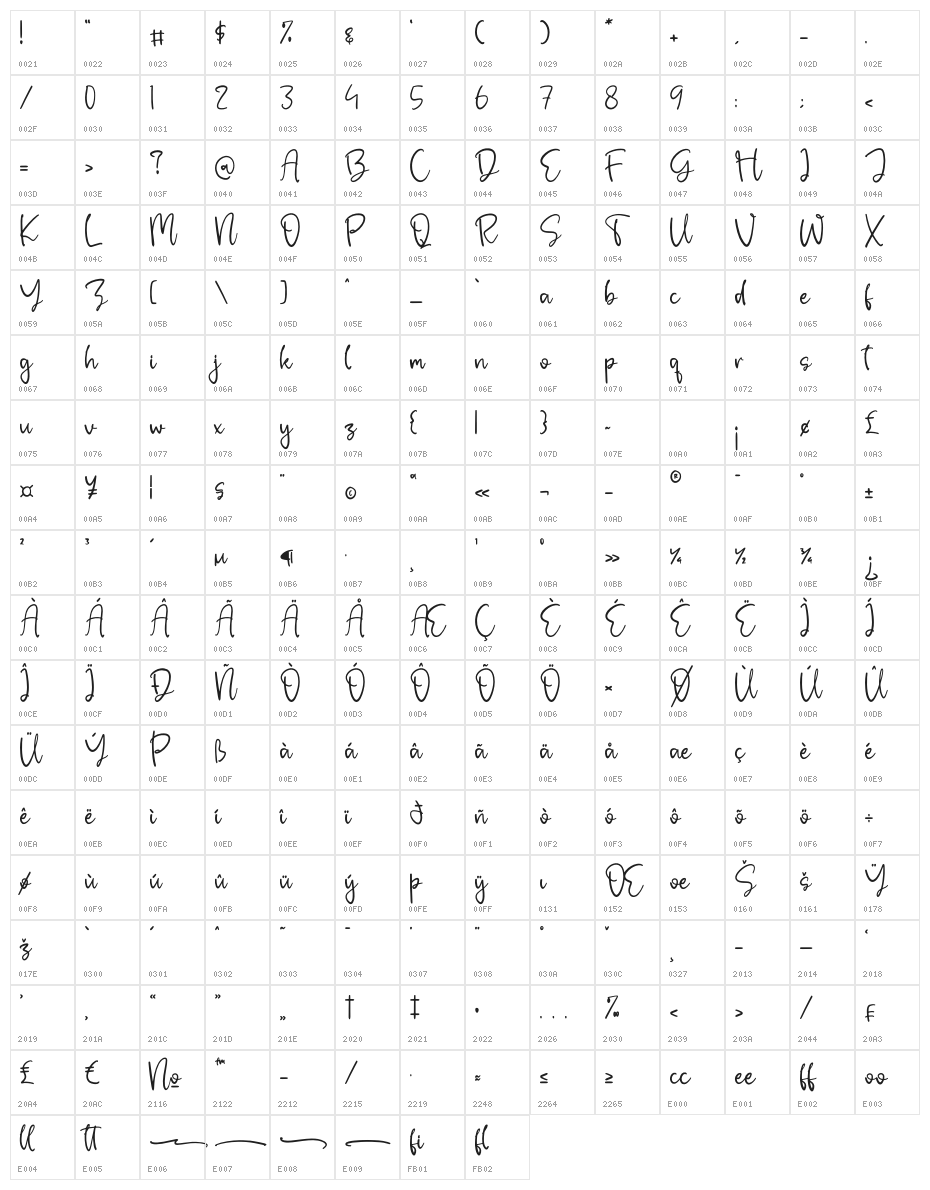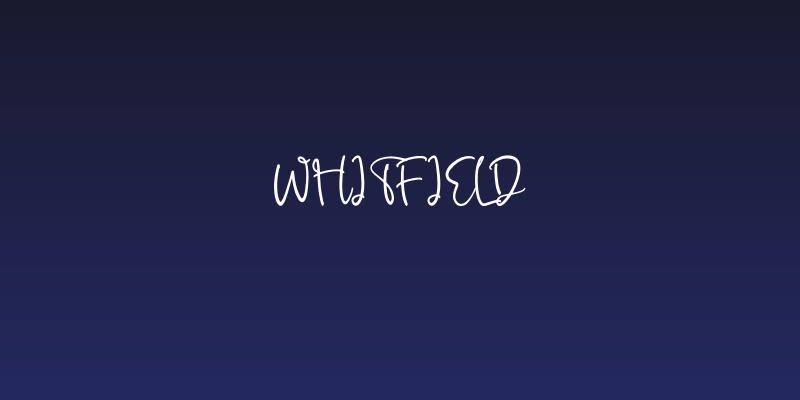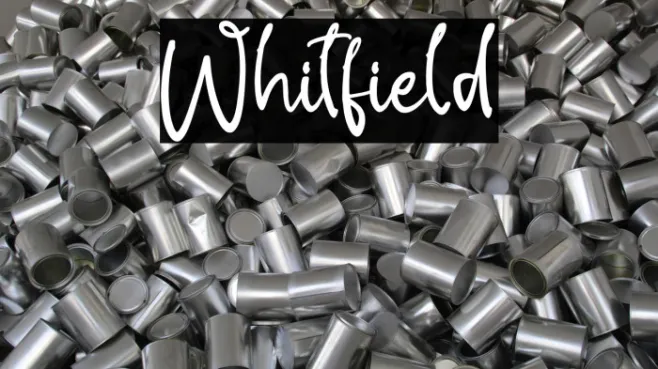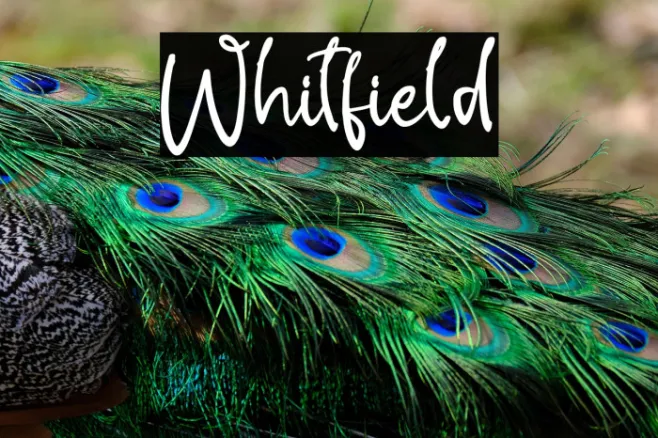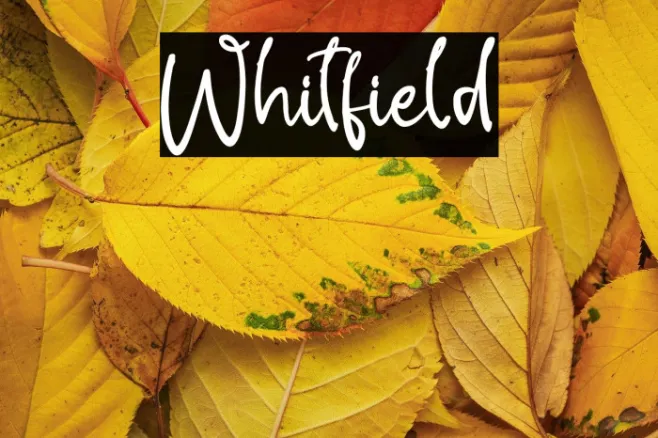
Whitfield Font
Whitfield Description
A playful and casual handwritten script font with a natural flow and slight slant, featuring smooth curves and varying stroke thickness.
| Use Case | Logos, Invitations, Personal projects |
| Proposed Projects | Greeting cards, invitations, personal branding. |